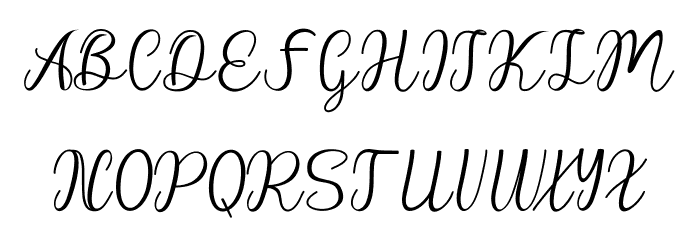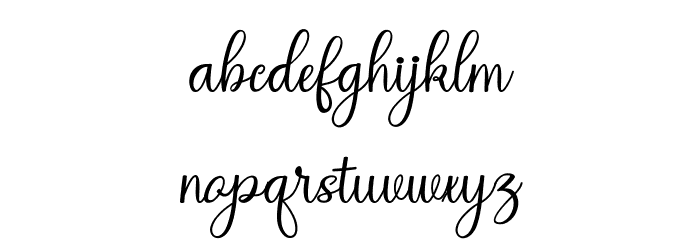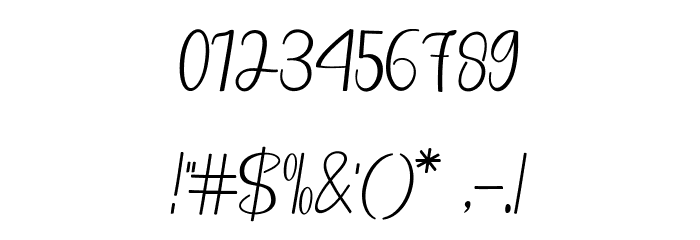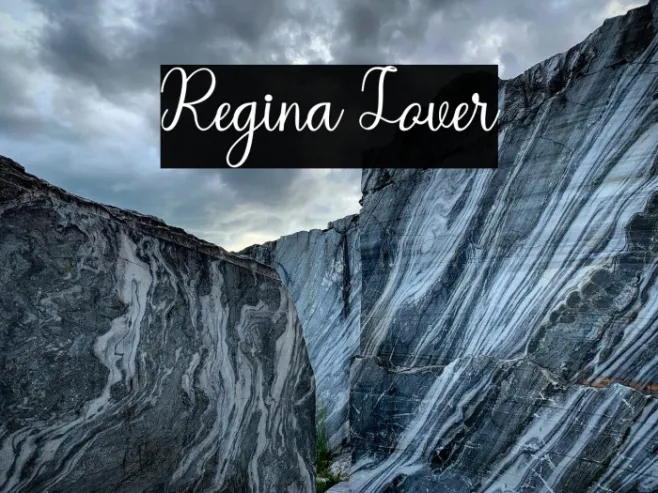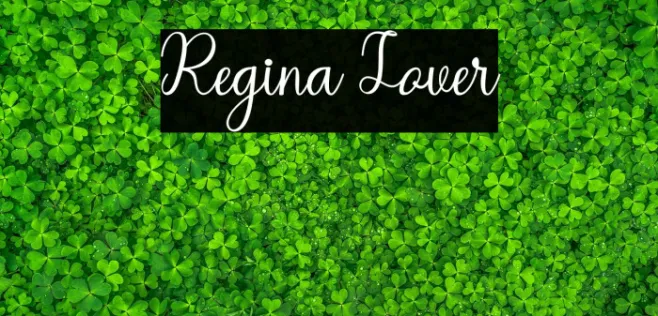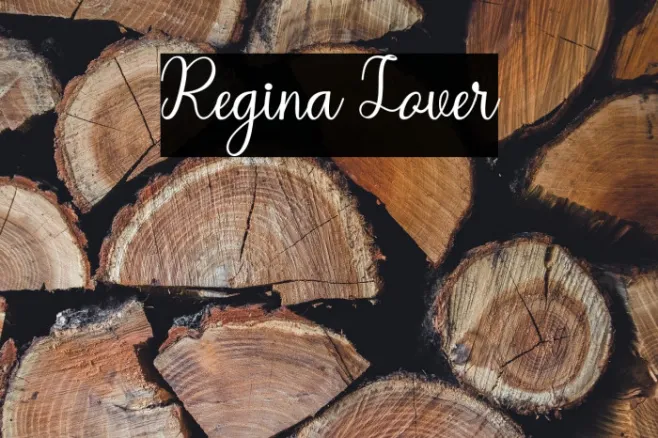
Regina Lover Font
This elegant script font features flowing, cursive letterforms that convey a sense of sophistication and grace. The uppercase letters are slightly more ornate, with sweeping curves and flourishes that add a touch of drama. The lowercase letters maintain a consistent style, with smooth connections between characters that enhance readability. Numbers and special characters are designed to match the overall aesthetic, ensuring a cohesive look across all text. The font's delicate strokes and subtle variations in line thickness give it a refined appearance, making it suitable for formal and decorative applications.
An elegant script font with flowing, cursive letterforms and sophisticated style.
- Font: Regina Lover
- Proposed Projects: Ideal for wedding invitations, elegant branding, greeting cards, and upscale packaging.
- Category: Script
- Overall Style: Elegant
- Use Case: Logos, Invitations, Decorative text